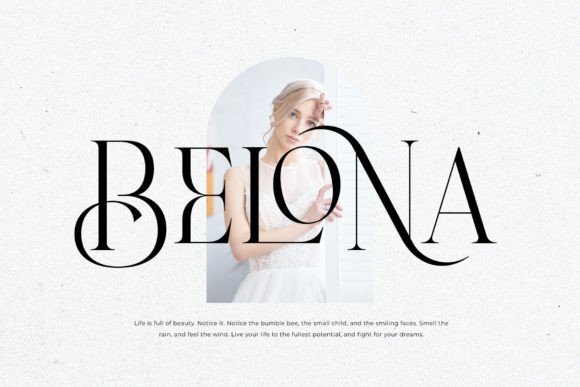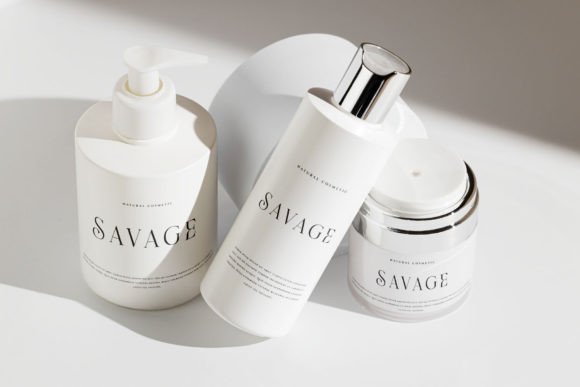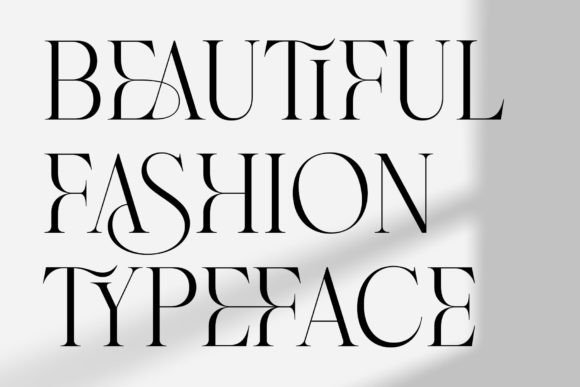
Introduction to Hosera Font
Imagine you’re working on a design project, and you’re struggling to find the perfect font that captures the essence of your creative vision. You’ve tried countless options, but nothing seems to fit quite right. That’s where Hosera Font comes in – a beautiful, elegant choice that’s sure to elevate your design to the next level.
As a designer, you know the importance of having high-quality design resources at your fingertips. With Hosera Font, you’ll have access to a versatile and sophisticated font that’s perfect for creating stunning logos, titles, and branding materials. Whether you’re working on a magazine cover or a lifestyle design project, Hosera Font is the perfect design resource to help you stand out.
Key Features of Hosera Font
- High-quality design resource ideal for creative projects requiring a unique touch.
- Features a clean and modern design, perfect for a wide range of creative projects, from logos and branding to digital art and graphics.
Honest Review: Hosera Font
I recently had the chance to work with the Hosera Font, and I must say it’s been a game-changer for my creative project. As a designer, I’m always on the lookout for high-quality design resources that can elevate my work, and Hosera Font definitely fits the bill.
What works well: ✨ The font is incredibly versatile and can be used for a wide range of projects, from logos to brochures. I’ve also been impressed with the smooth, flowing lines that make it perfect for body text. Plus, it’s available for free download, which is always a bonus!
However, there are a few limitations to keep in mind: ⚠️ The font may not be suitable for projects that require a lot of bold or dramatic text, as it can sometimes come across as a bit too minimalist. Additionally, the font family is quite extensive, so it may take some time to navigate and find the perfect combination of styles.
Overall, I’m thoroughly impressed with the Hosera Font and would highly recommend it to any designer looking for a reliable, high-quality design resource.
Hosera Font
For the most out of Hosera Font, use it for creative projects that require a high-quality design resource. This font is perfect for:
– Social media graphics
– Infographics
– Branding materials
– Marketing materials